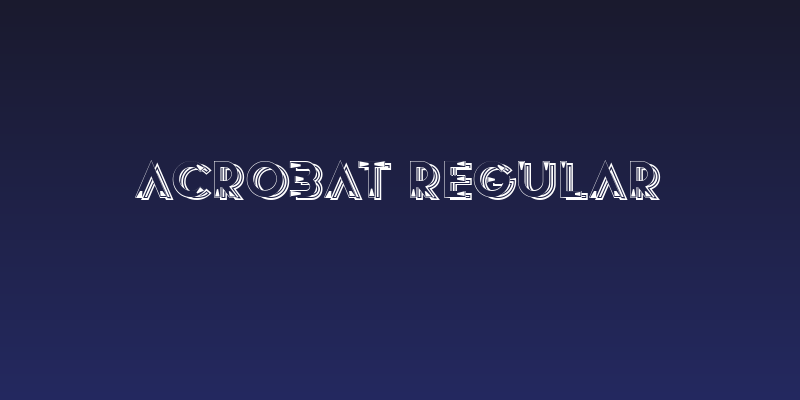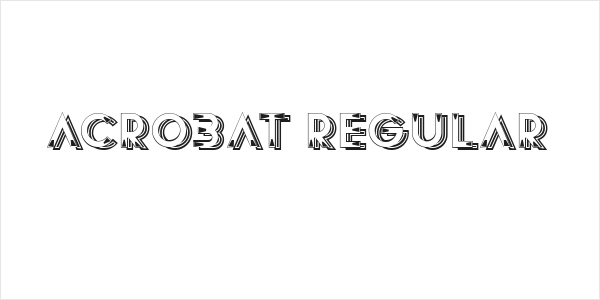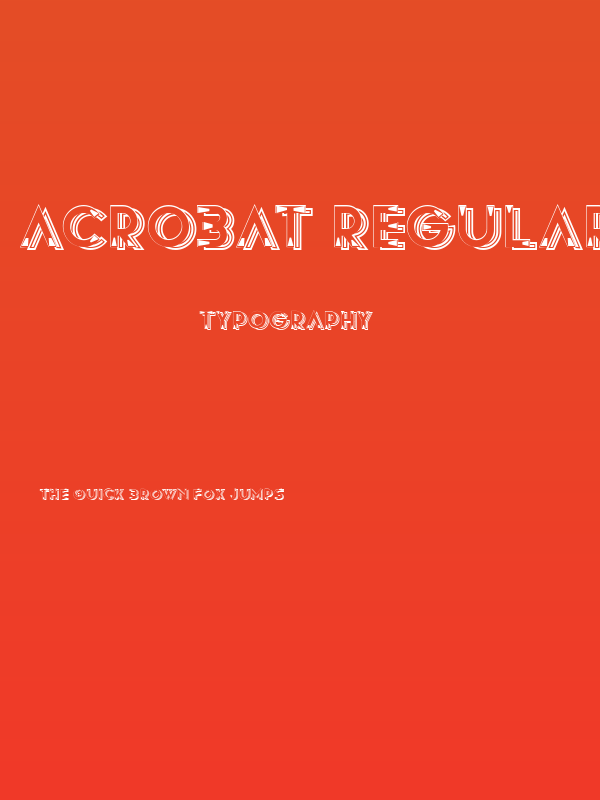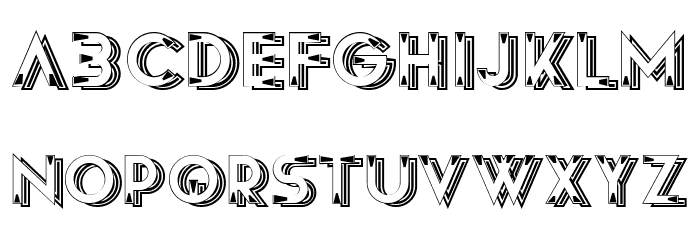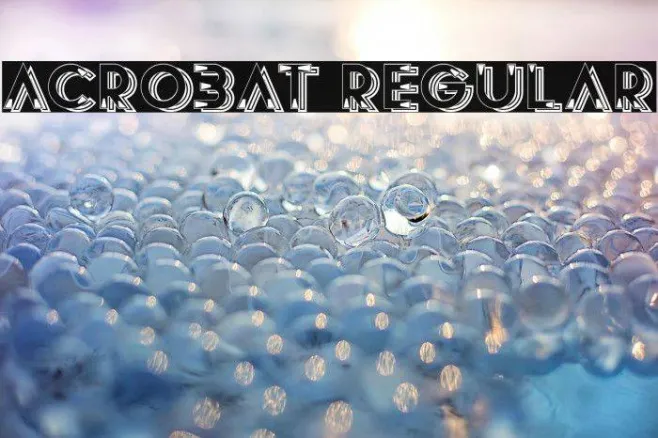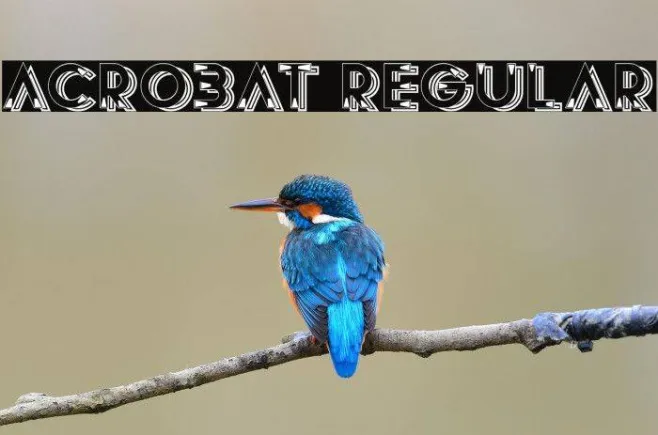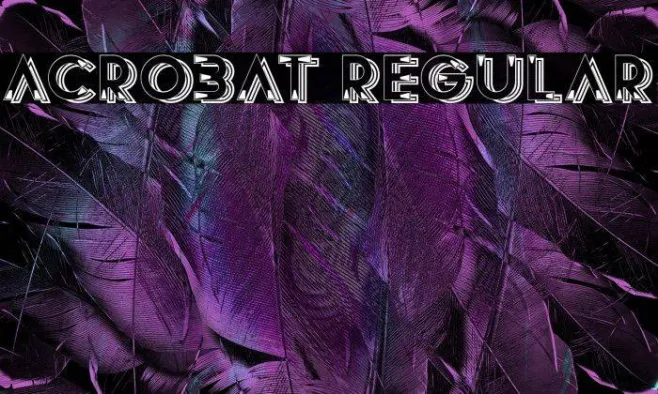
Acrobat Regular Font
Acrobat Regular Description
This font features a bold, decorative style with a three-dimensional effect created by layered outlines. The uppercase letters are designed with sharp angles and geometric forms, giving a sense of depth and movement. The font's unique structure makes it stand out, with each character having a distinct, artistic flair. The strokes are consistent in width, contributing to a uniform appearance across all characters. This font is ideal for projects that require a strong visual impact and a modern, artistic touch.
| Proposed Projects | Ideal for posters, logos, headlines, and branding materials that require a striking visual impact. |